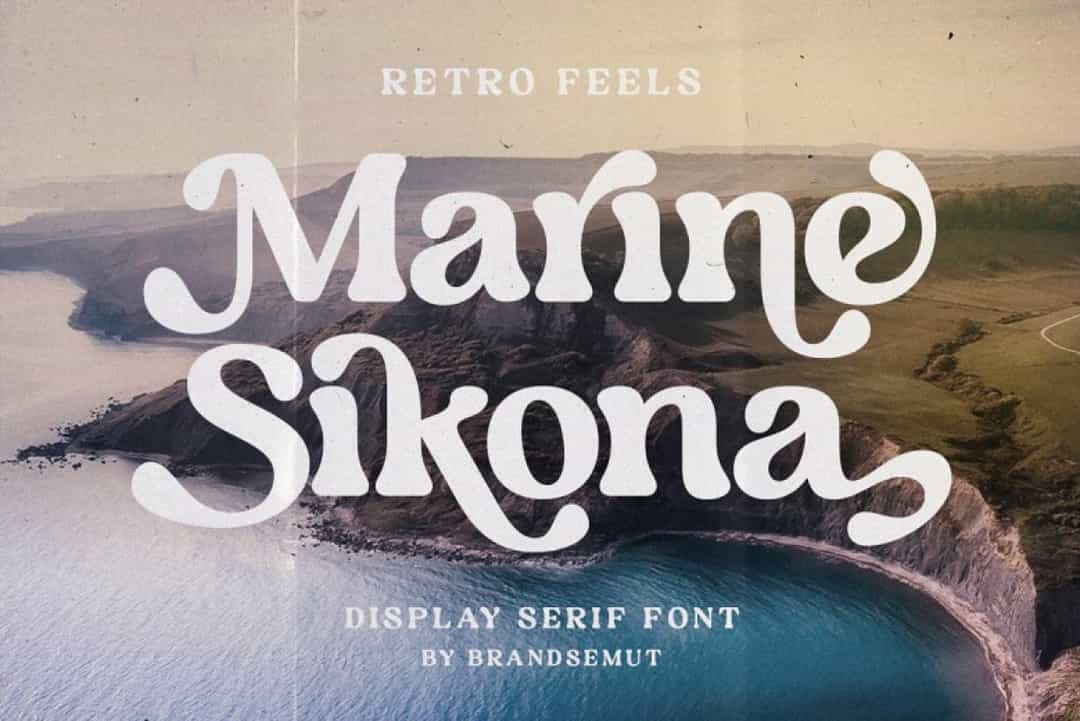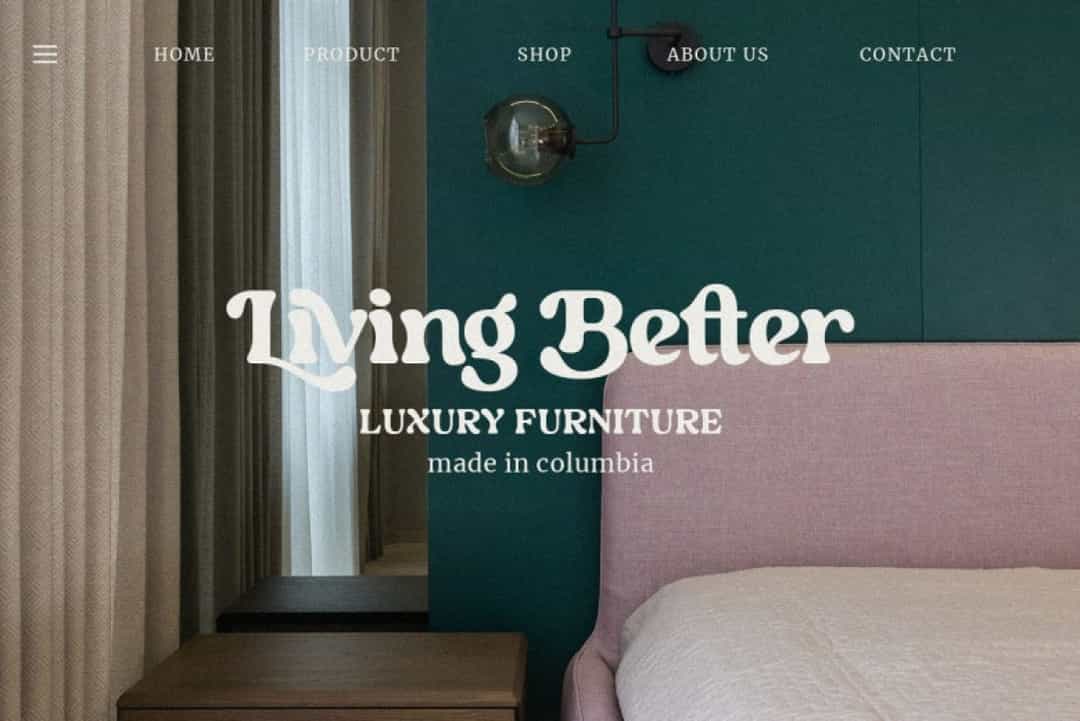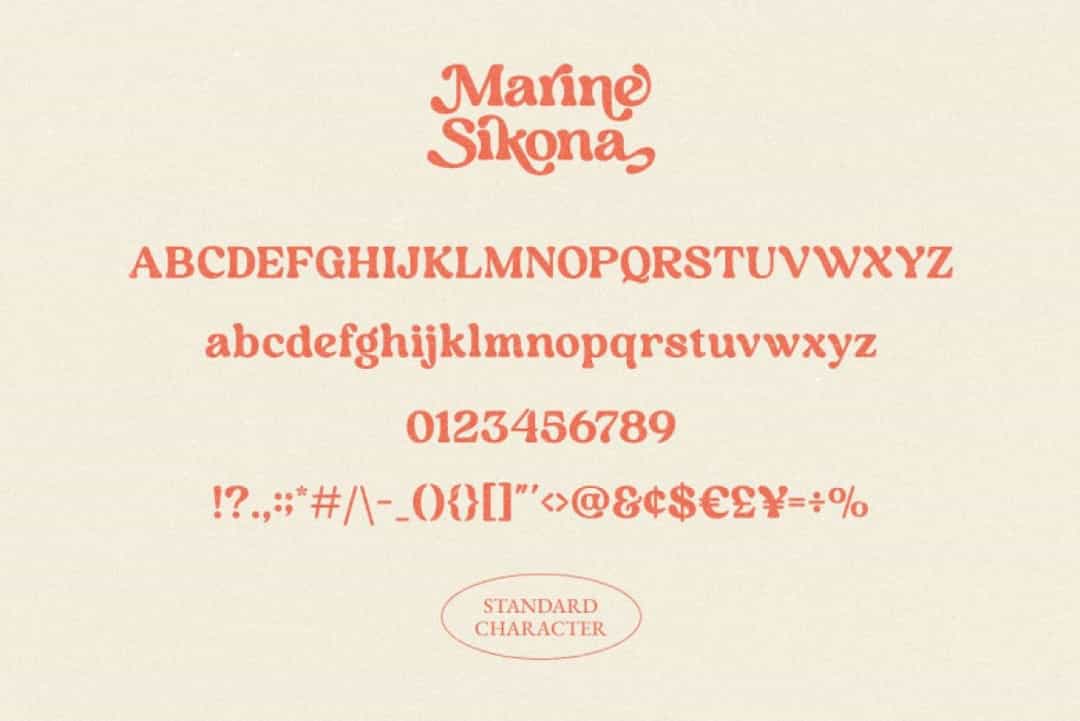
Marine Sikona is an elegant and retro display serif font perfect for headings, logos, branding materials, product packaging for products or magazines and invitations. Equipped with Ligature as well as numerous alternates this font gives any project that extra quality touch.